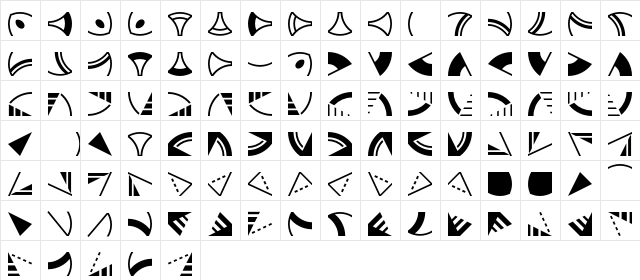
Ornaments City FB Regular
Foundry: The Font Bureau, Inc
Design Context for Ornaments City FB
Ornaments City FB is built around its visual character rather than neutral utility - its distinctive forms are designed to make an impression at display sizes.
Font Pairing: Pair with a clean neutral sans-serif for body copy to let Ornaments City FB's character lead without overwhelming the composition.
Pro Tip: Use Ornaments City FB exclusively at display sizes - it was designed to be seen, not read at length. Let a neutral companion handle body copy.